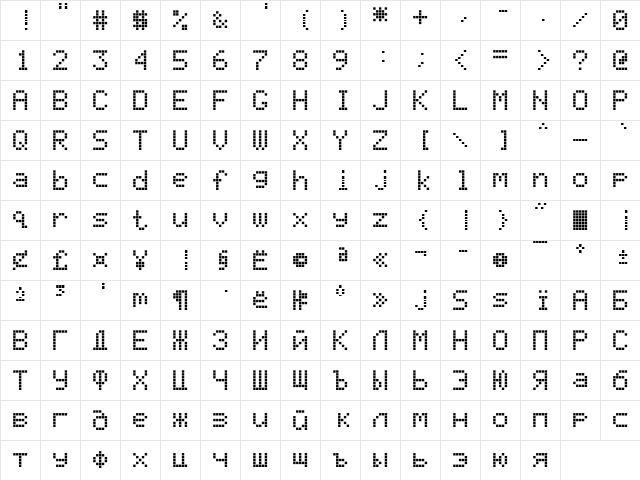
Liquid Crystal Display Normal
Liquid Crystal Display brings ornamental detail and strong personality to headlines and identities, where visual impact matters more than quiet functionality.
Font Pairing: Pair with a clean neutral sans-serif for body copy to let Liquid Crystal Display's character lead without overwhelming the composition.
Pro Tip: Treat Liquid Crystal Display as the centrepiece of your typographic hierarchy. One strong heading set in a decorative face can carry an entire layout.